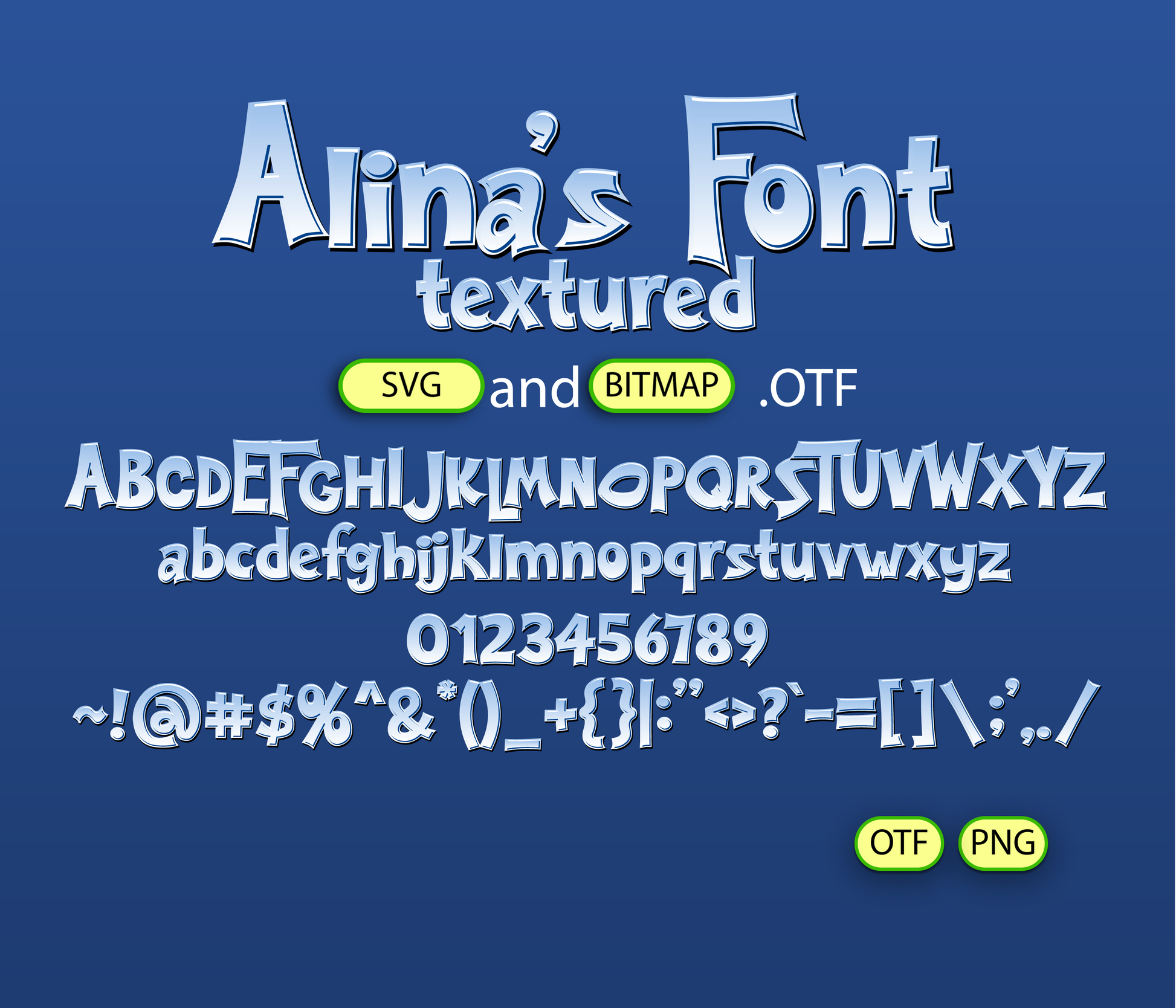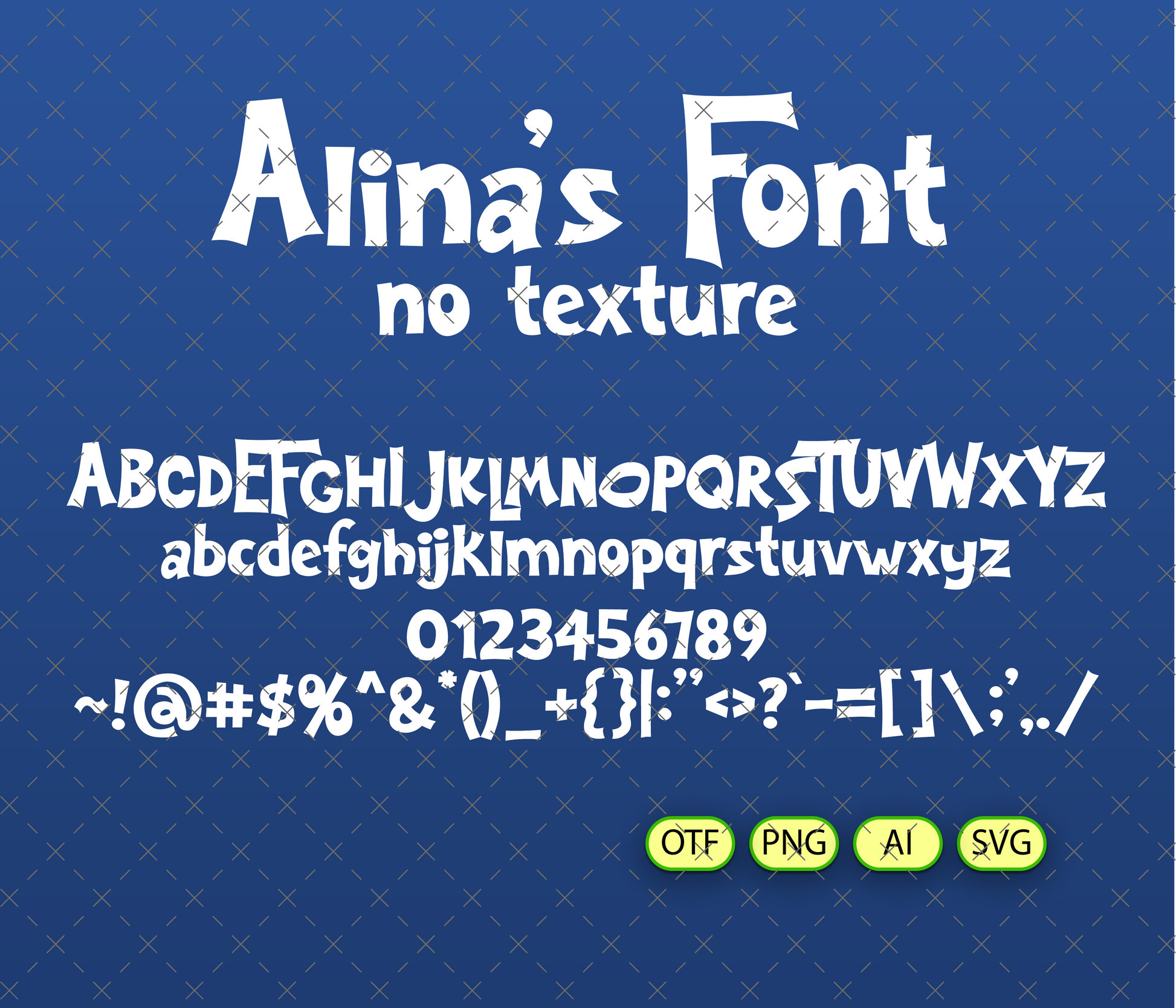
Snowy Friend Font Textured
Step into the magical realm of winter festivities with our Snowy Friend font, capturing the essence of holiday wonder and frosty delight. Perfect for seasonal enthusiasts, festive designers, celebration coordinators, and creative professionals, this font brings the merry, ice-kissed spirit of classic winter stories to your projects. Create nostalgic holiday materials, merchandise, or digital content with the charming energy of beloved snowy characters.
Our Snowy Friend font features whimsical, textured letterforms and crystalline characters reflecting the world of seasonal enchantment. Ideal for:
- Event Promotions: Create inviting announcements, posters, and banners for holiday festivities, winter showcases, and seasonal gatherings that capture the spirit of cold-weather celebrations
- Merchandise Design: Perfect for apparel, prints, and gift items that showcase the delightful aesthetic of winter tales and holiday nostalgia
- Digital Media: Enhance online platforms, content channels, and social networks with festive headers and graphics that express the wonder of snowy seasons
- Holiday Content: Add genuine character to greeting designs, seasonal artwork, and creative projects inspired by timeless winter folklore
- Personal Projects: Bring celebratory joy to memory books, handmade crafts, and interior styling inspired by the world of frosty adventures
Our font pays tribute to the iconic world of winter tradition and seasonal storytelling, empowering your designs with its delightful and memorable spirit. Whether crafting promotional materials, designing merchandise, or adding a celebratory touch to personal projects, this font communicates the warm essence of winter happiness. Ready to inject frosty charm into your creations? This font is your key to exciting, impactful design.